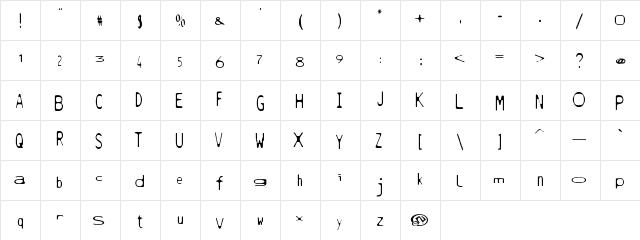
South point Regular
| Foundry | Chris Brown (visual design) |
| Designer | Chris Brown |
Design Context for South point Typeface
South point takes a measured approach to typography — its balanced proportions and neutral character make it a reliable workhorse for both digital and print work.